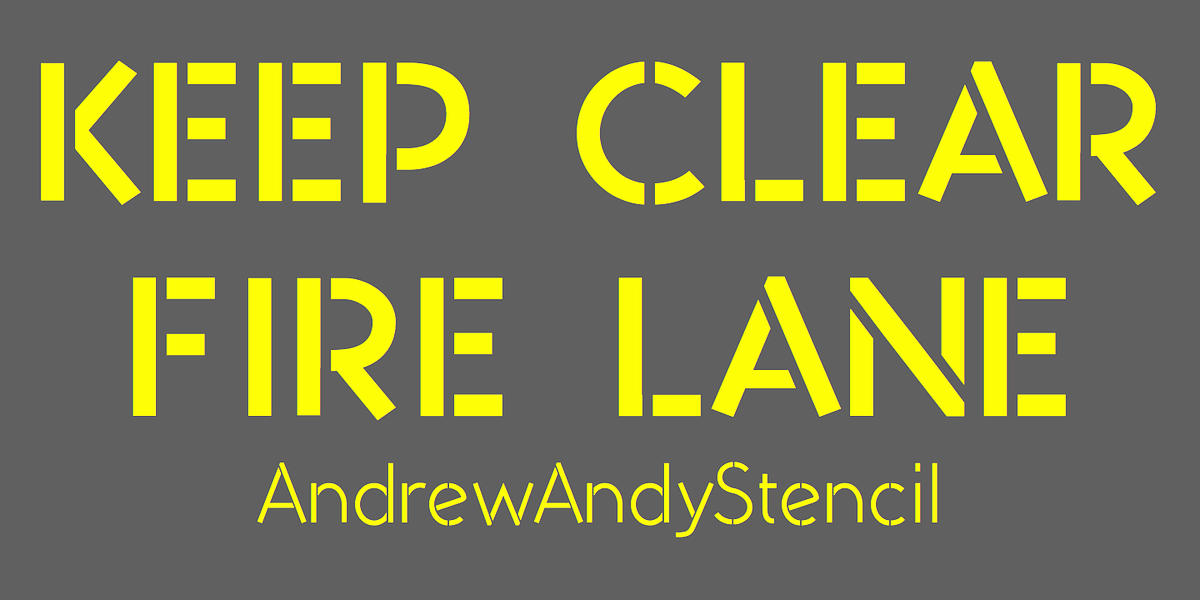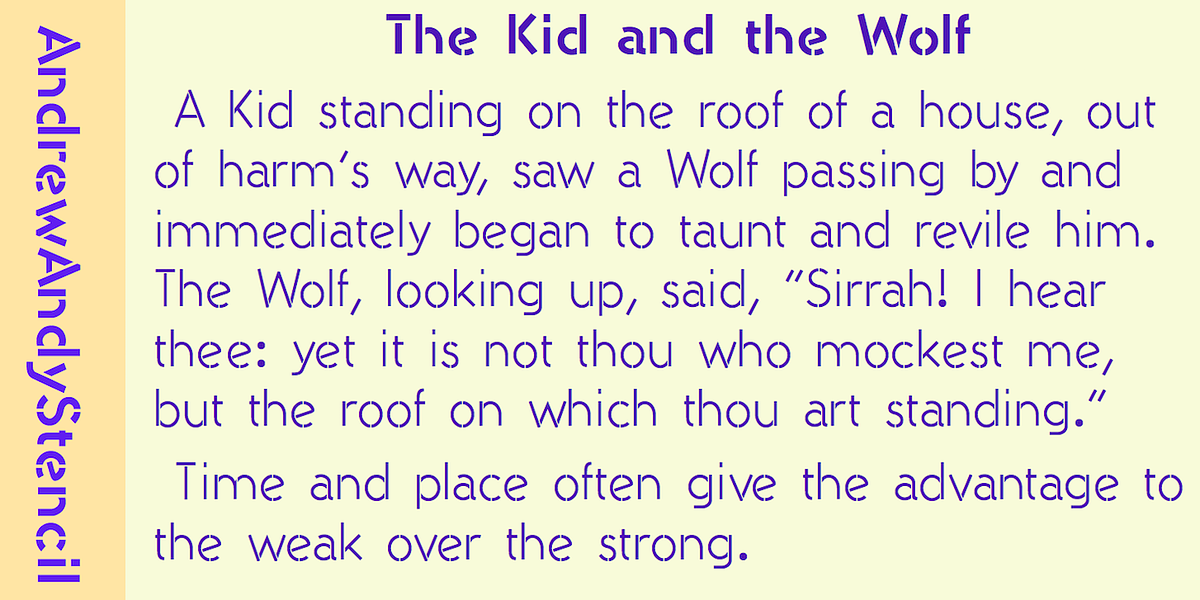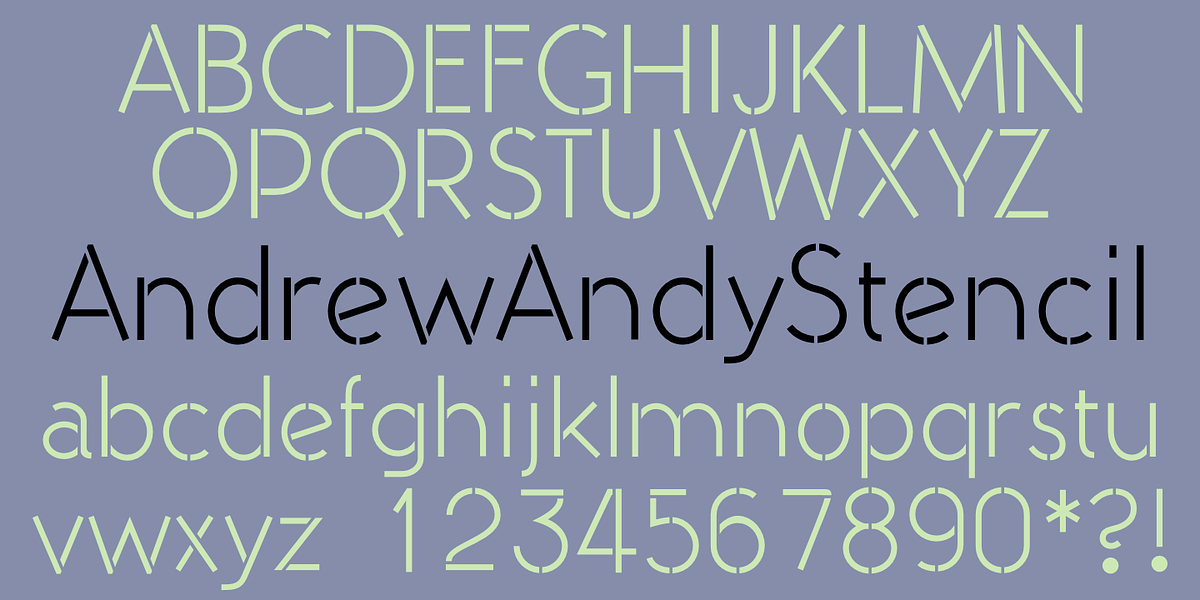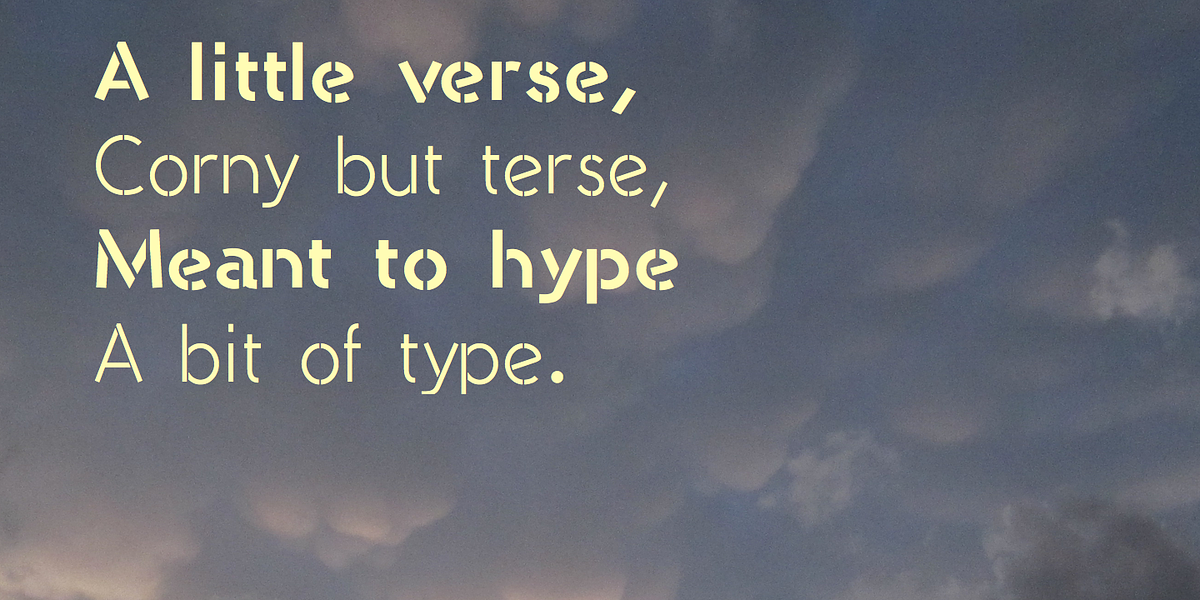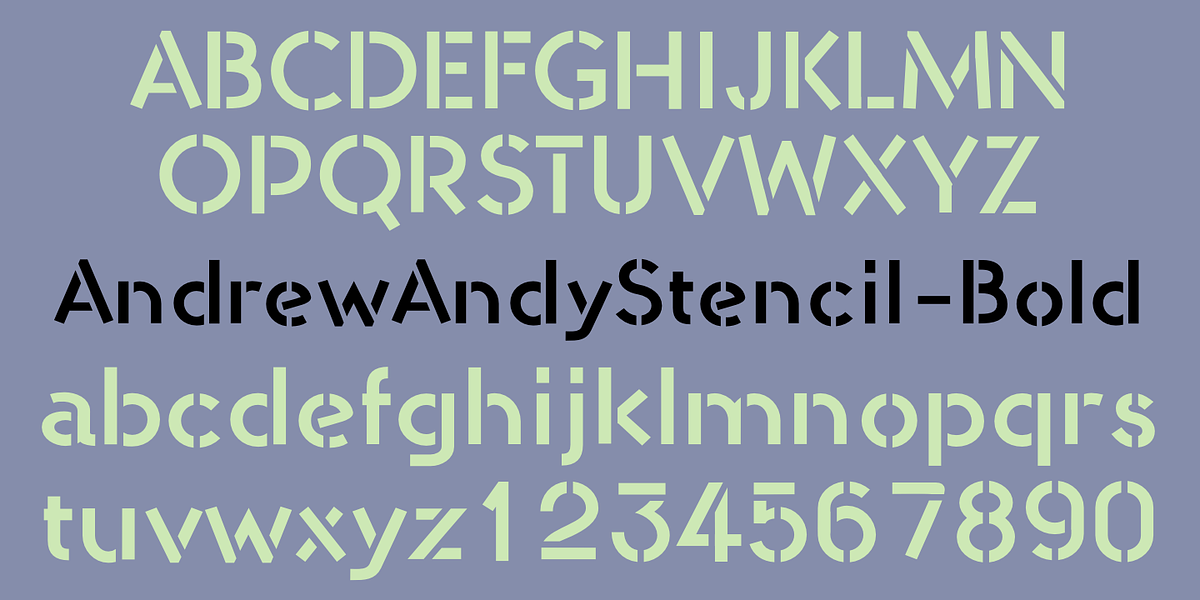
AndrewAndyStencil
AndrewAndyStencil is a geometric sans-serif font designed with a stencil aesthetic. It comes in two weights: regular and bold. The font's sharp edges and open design make it suitable for applications such as signage, labeling, and posters where legibility and visual impact are important.